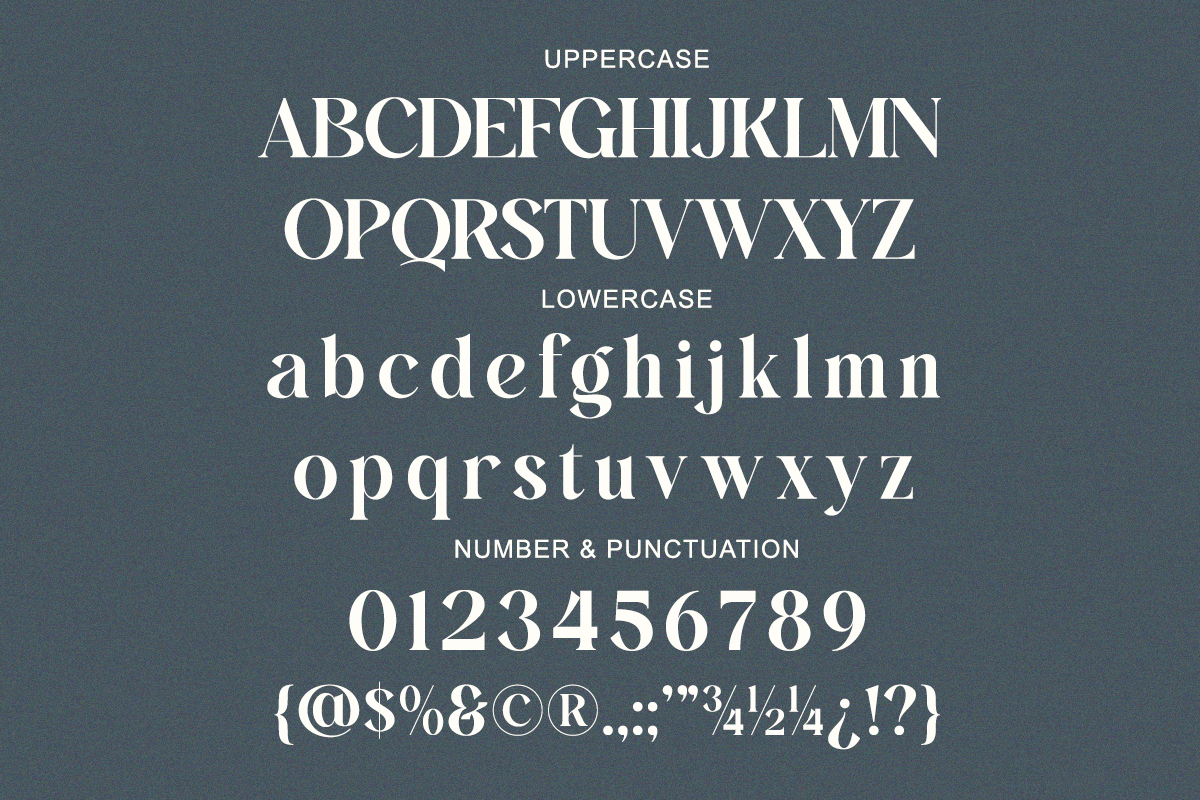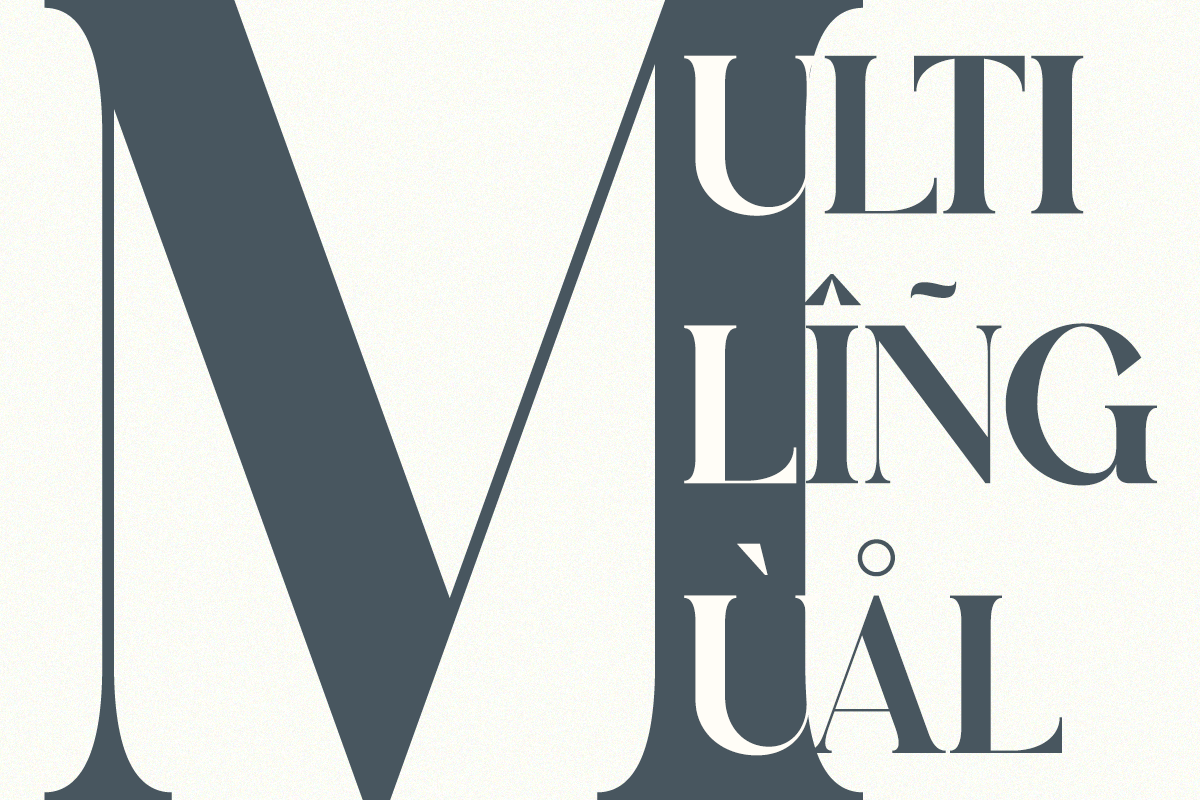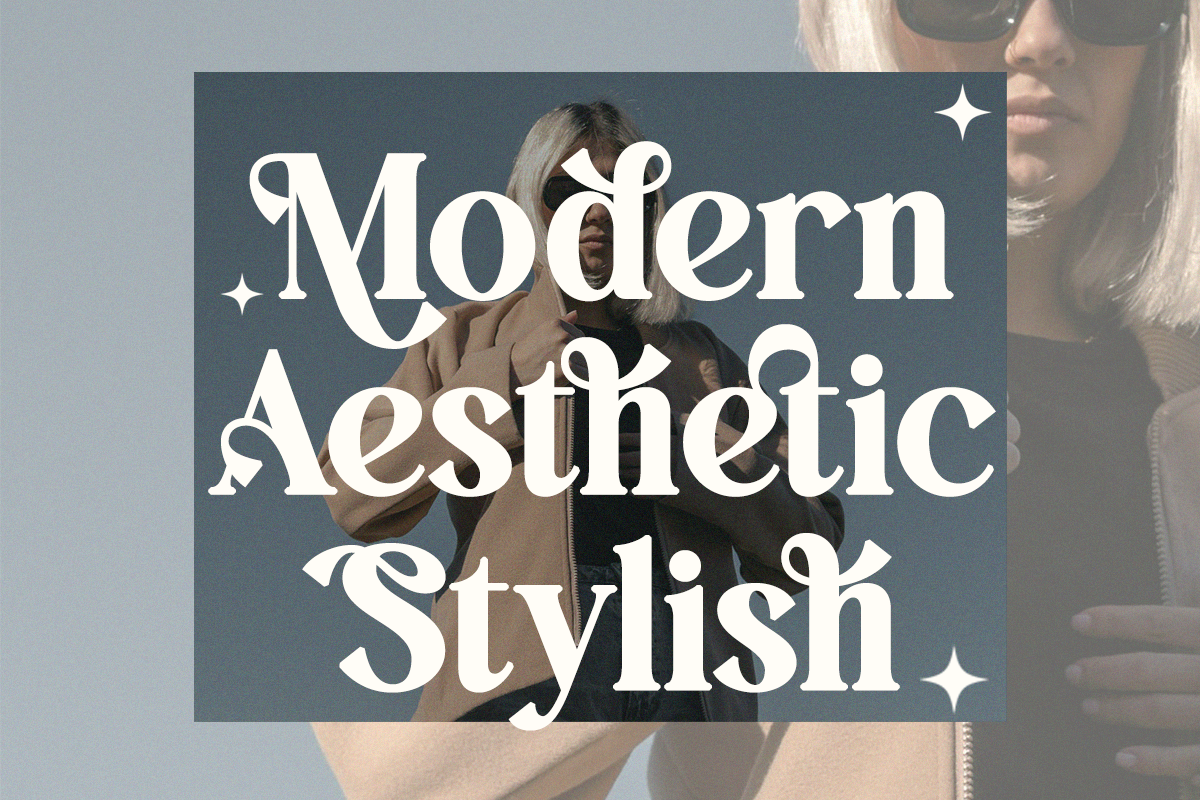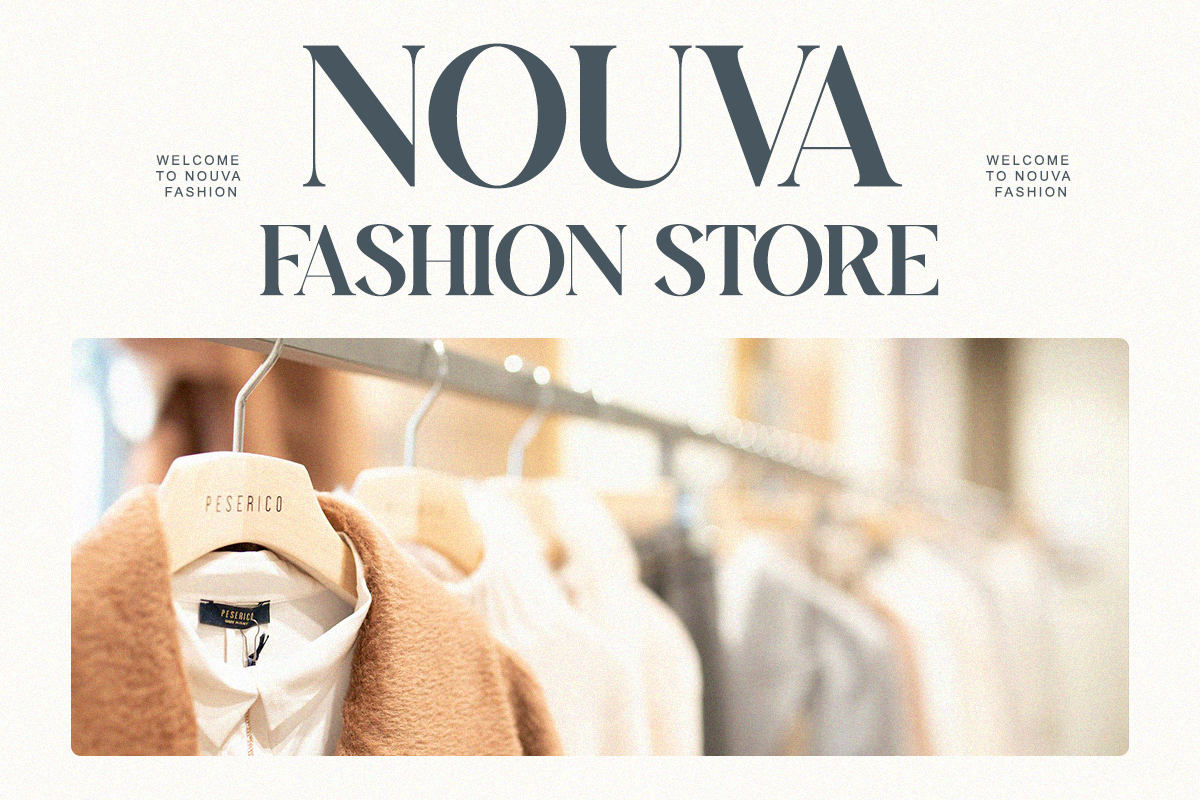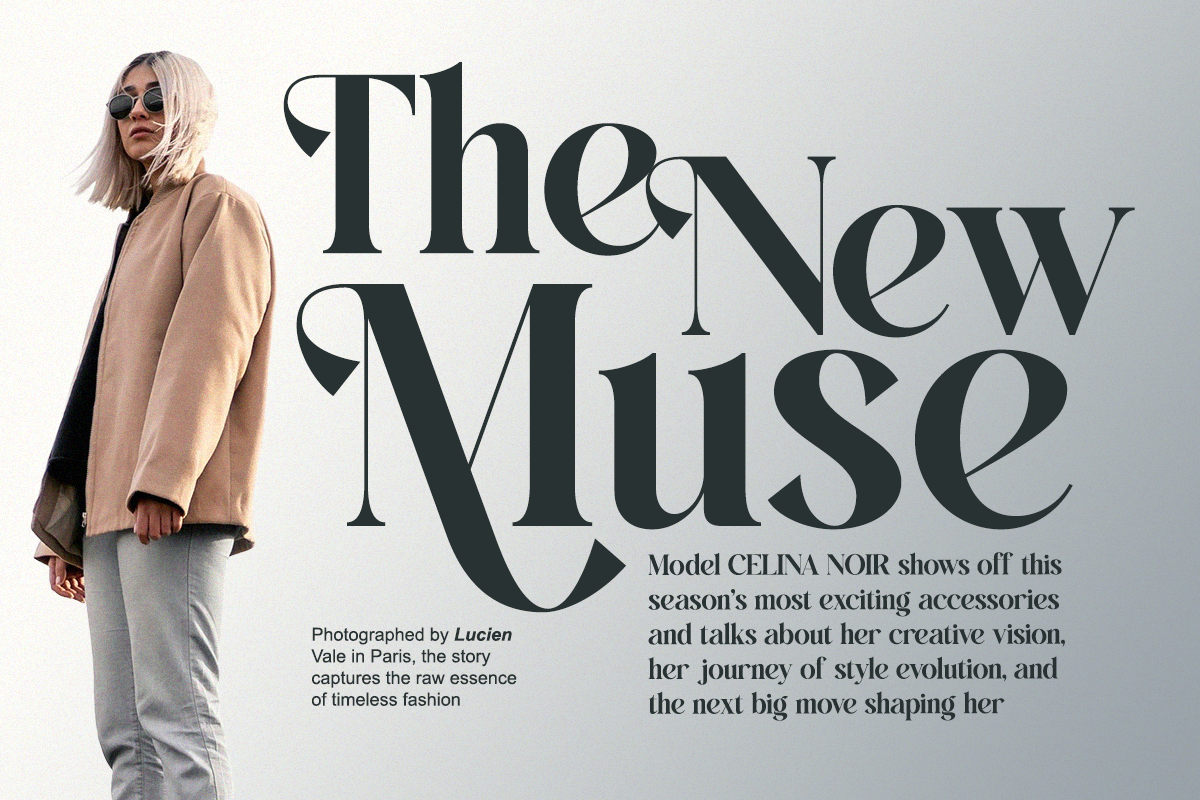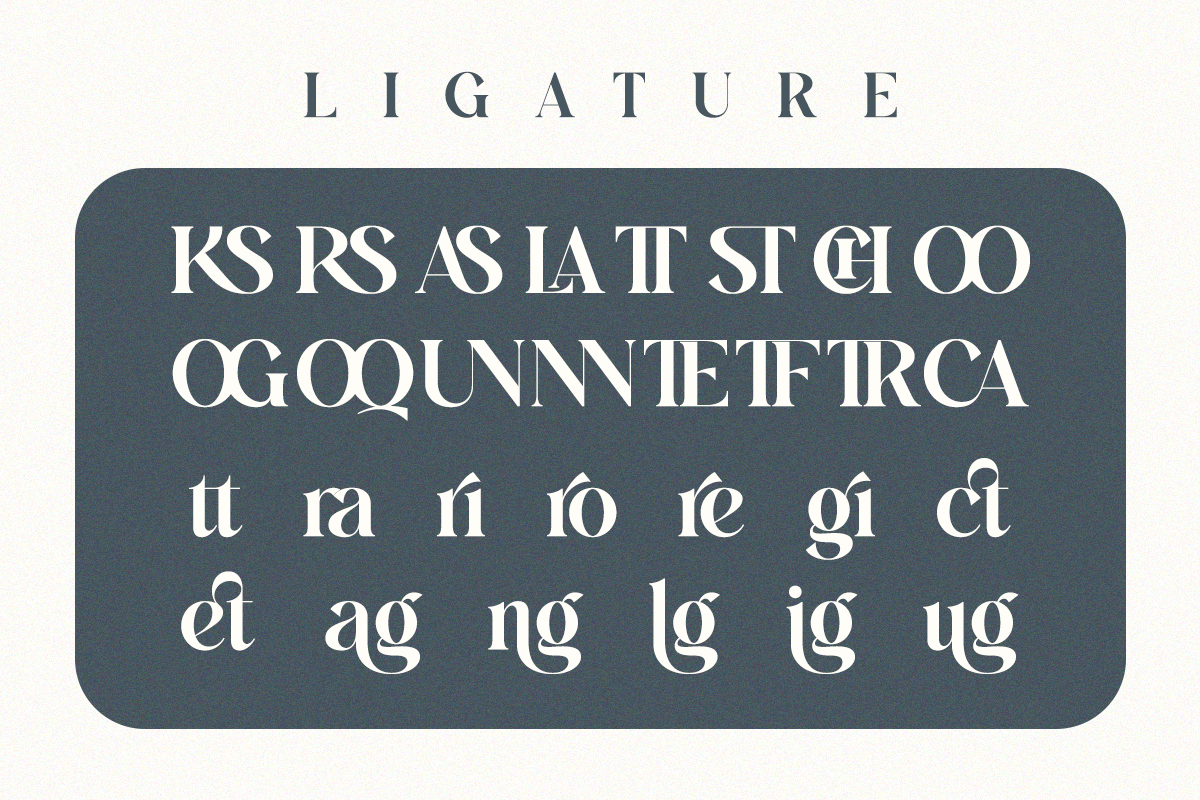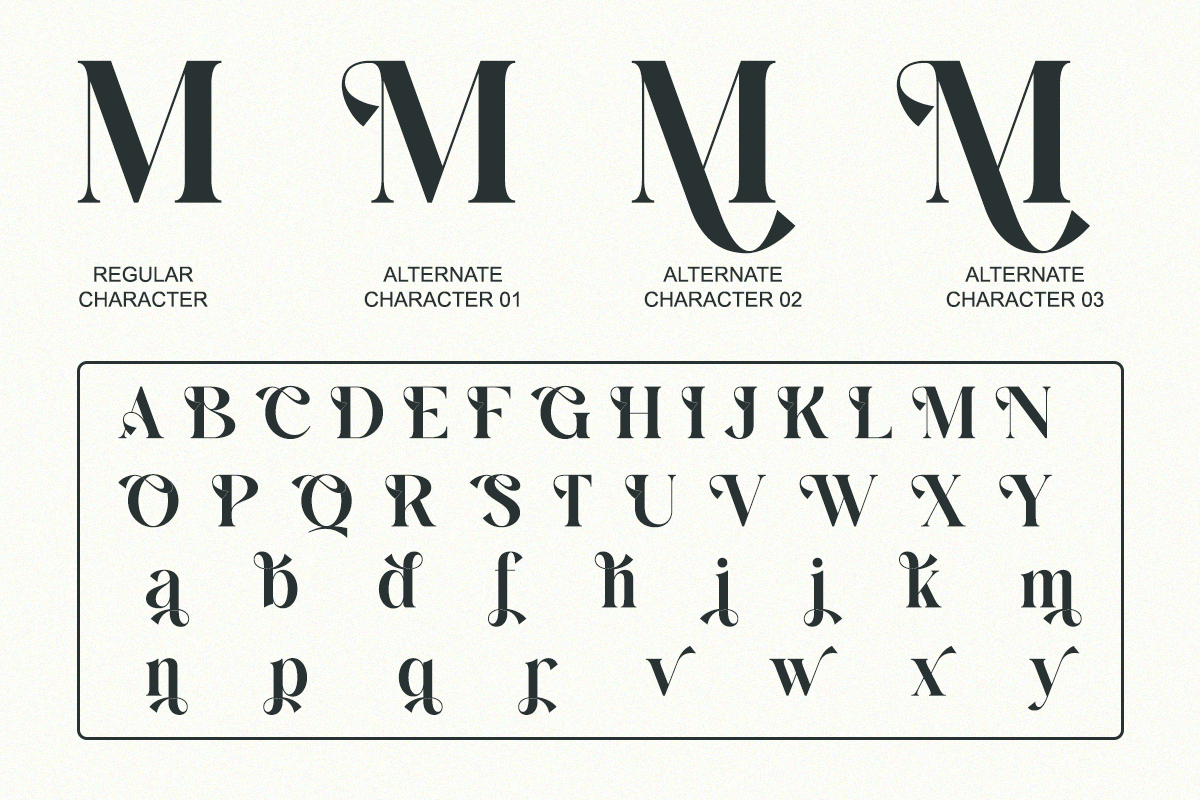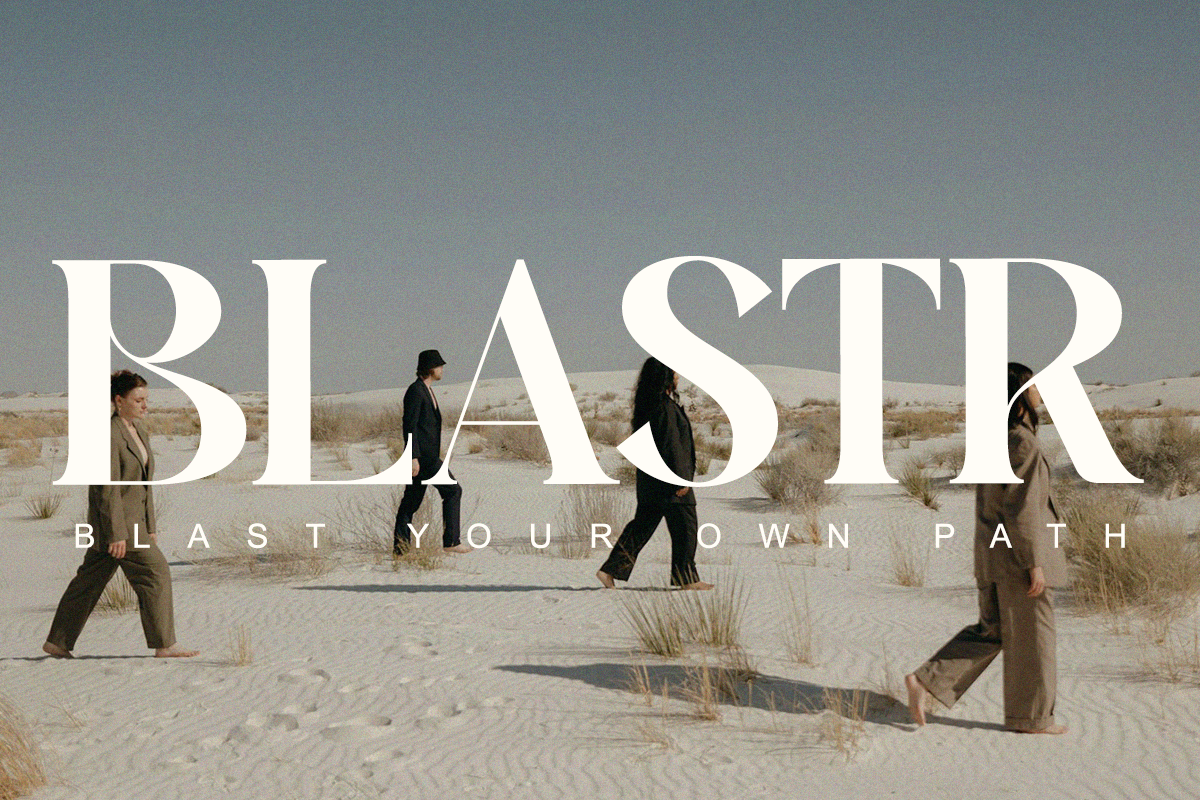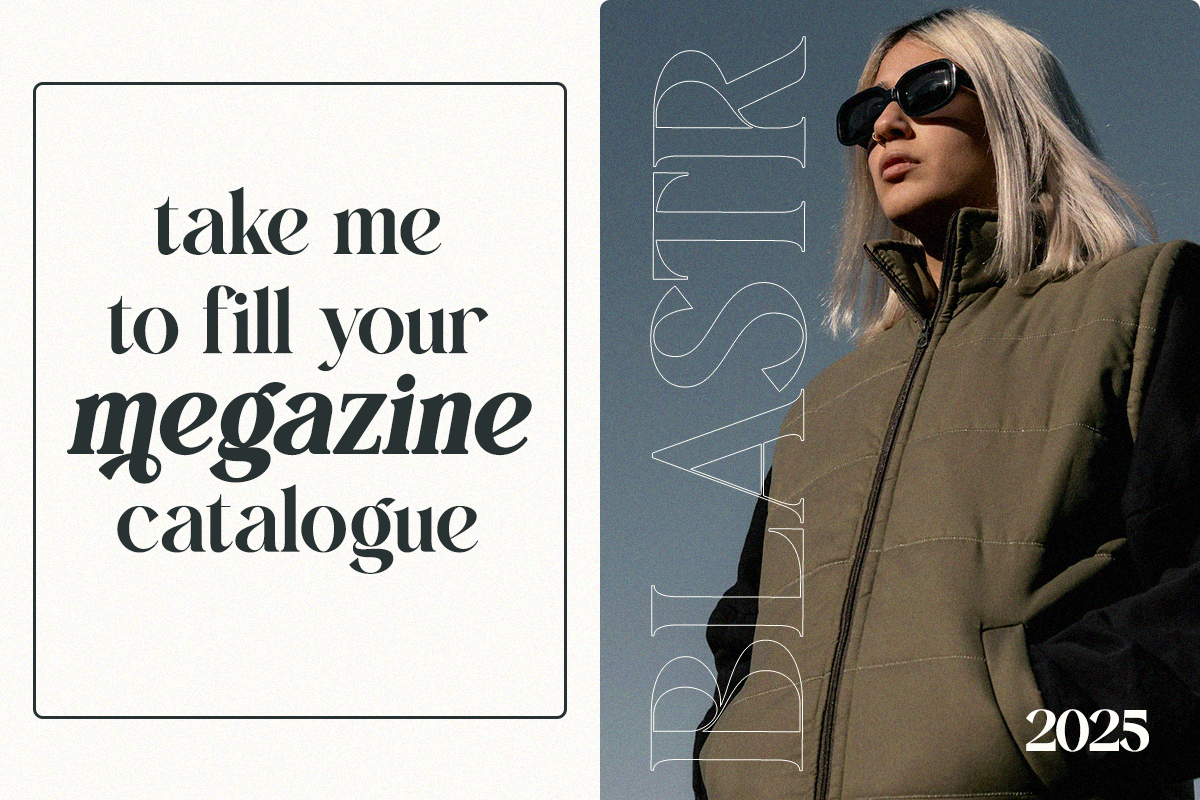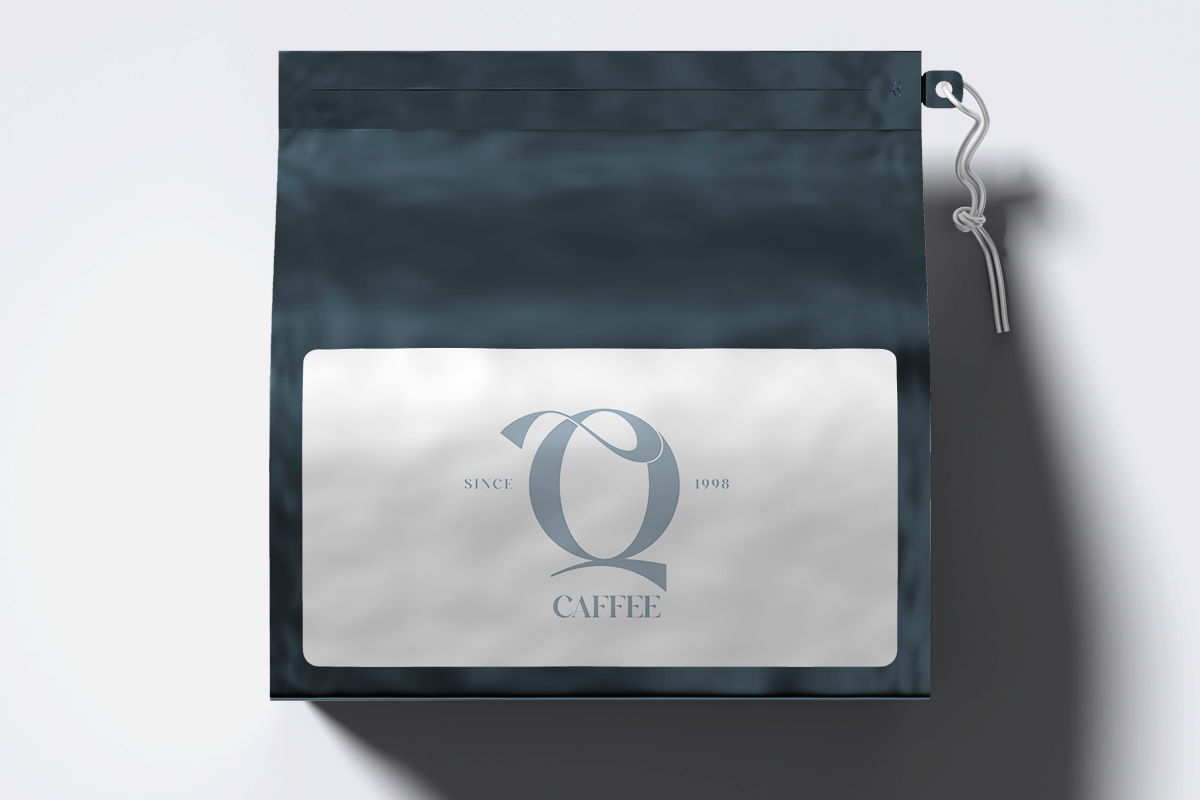
Ralrest - Modern Bold Branding Serif
Ralrest is a modern bold serif typeface with professional elegance and editorial appeal. It features clean strokes, balanced contrast, and a stylish aesthetic perfect for logos, packaging, and magazine headlines. Whether for fashion campaigns or brand identities, Ralrest offers a modern design language that feels timeless and confident.
- Uppercase, Lowercase, Numbers, Punctuation
Perfect For: Luxury branding, fashion packaging, editorial layouts, logo design, and digital identity.